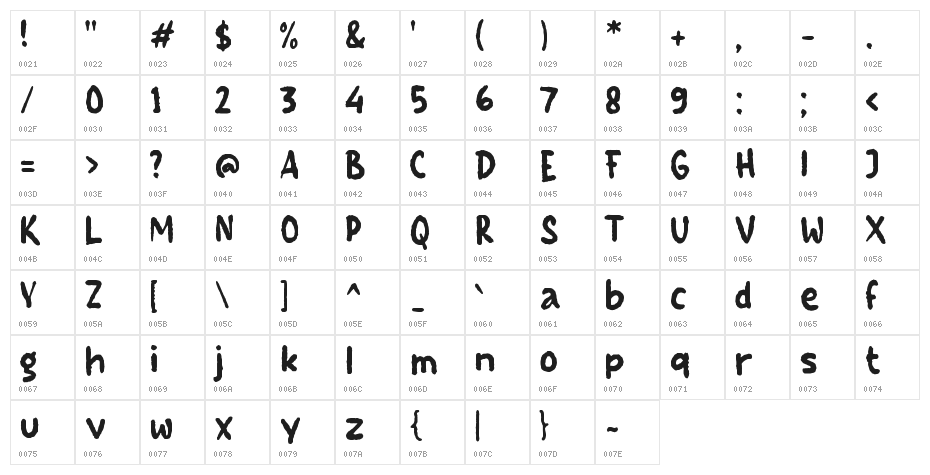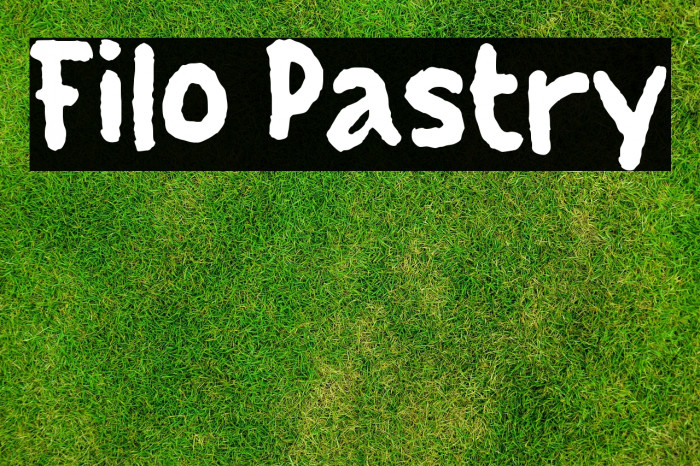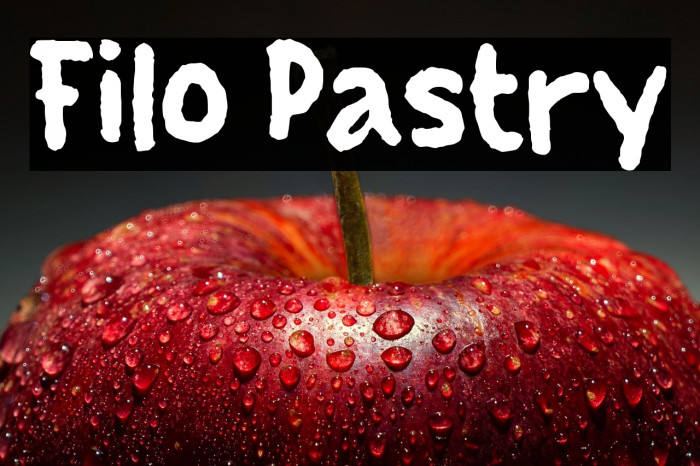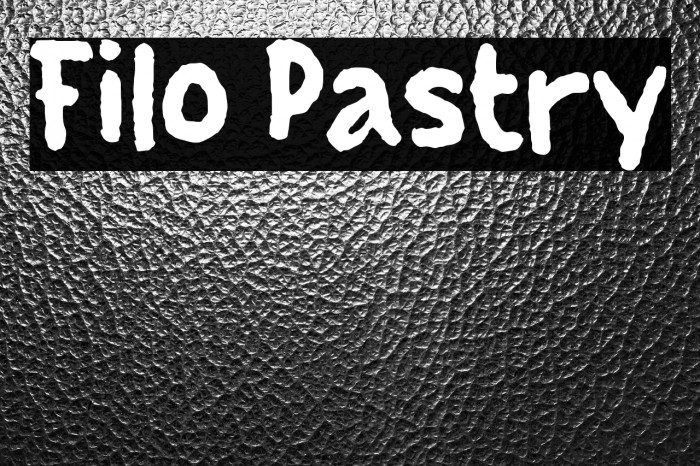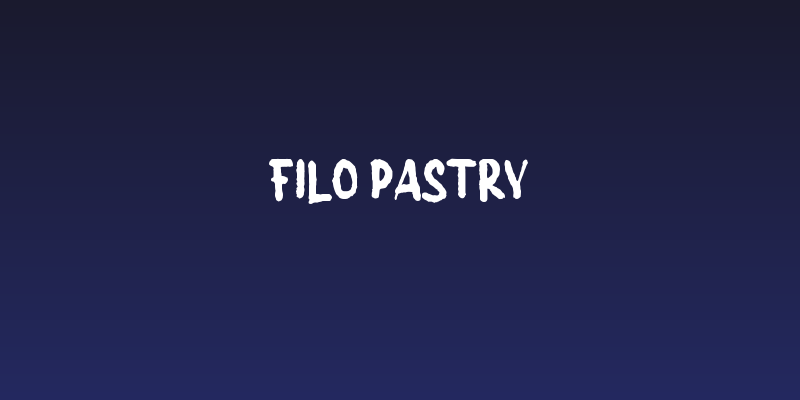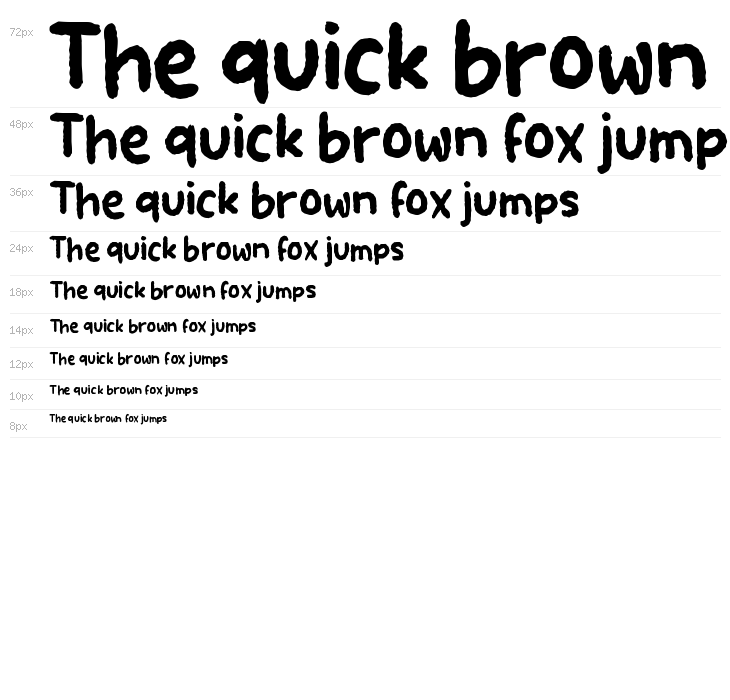
Filo Pastry Font
Filo Pastry Description
This font exhibits a playful and bold handwritten style, characterized by its thick, uneven strokes and organic shapes. The letters have a casual, informal appearance, reminiscent of brush or marker writing. The uppercase and lowercase letters maintain a consistent style, with rounded edges and a slightly irregular baseline, adding to its charm. Numbers and special characters follow the same aesthetic, ensuring a cohesive look across all glyphs. This font's unique personality makes it stand out, ideal for creative and artistic projects.
Overall StylePlayful
Proposed ProjectsIdeal for children's books, greeting cards, posters, and creative branding projects.